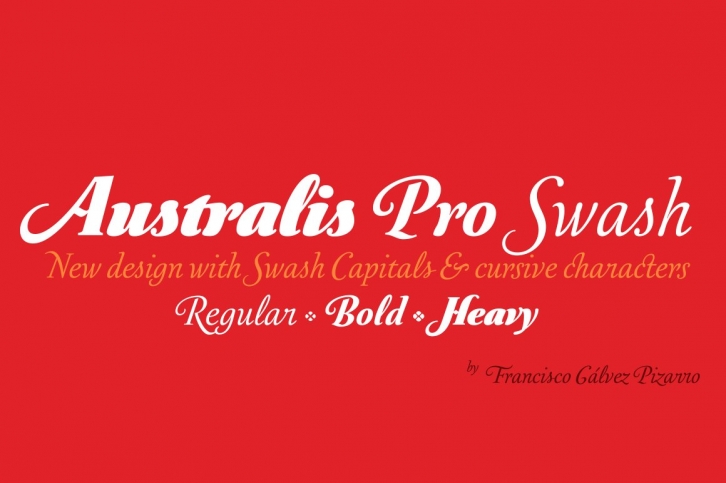
Australis Swash is a new variant that adds to the family of Australis Pro and it brings a touch of whimsy and mannerism to the shape of the cursive letters. Its purpose is purely playful because Australis Swash has some useful Opentype features as standard ligatures, discretionary ligatures and contextual alternates to use them in headlines or as a base for brands and lettering in general. Designed by Francisco Gálvez Pizarro in 2013.